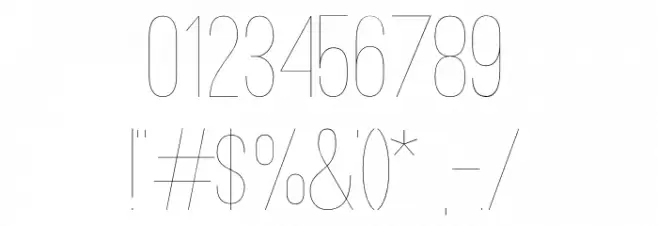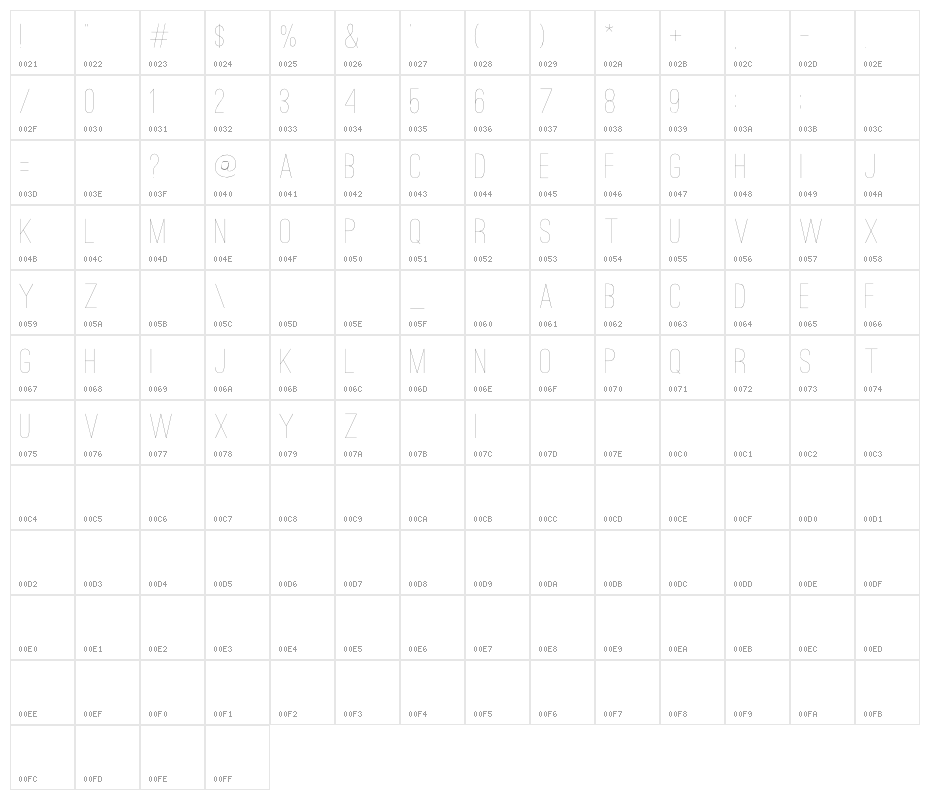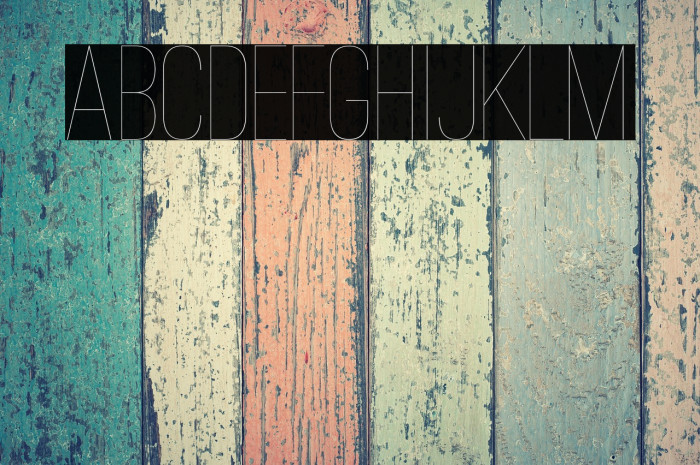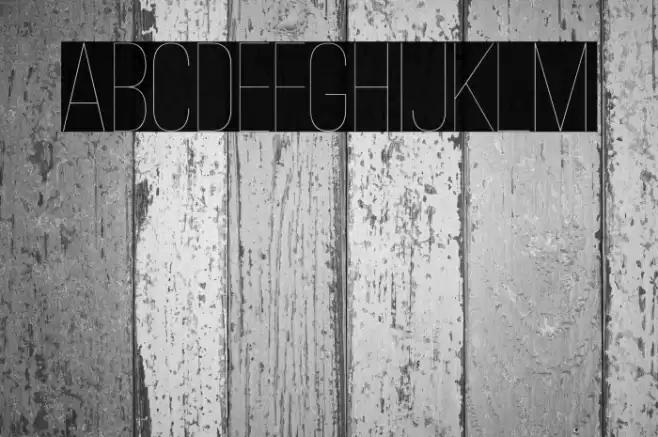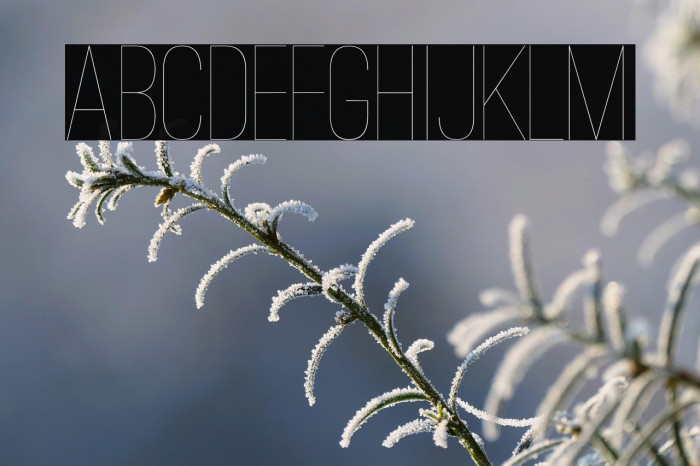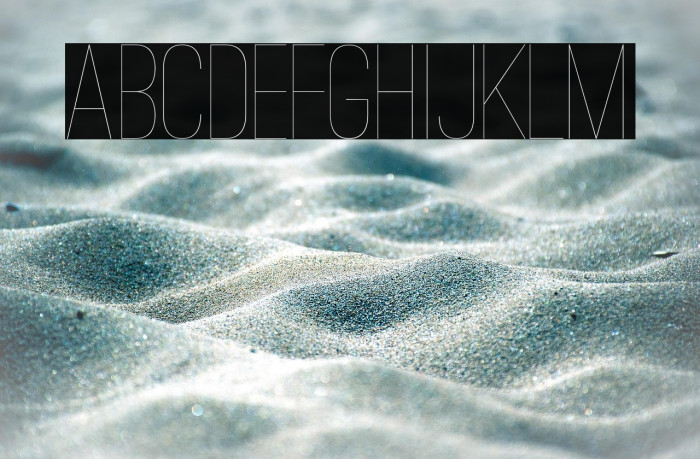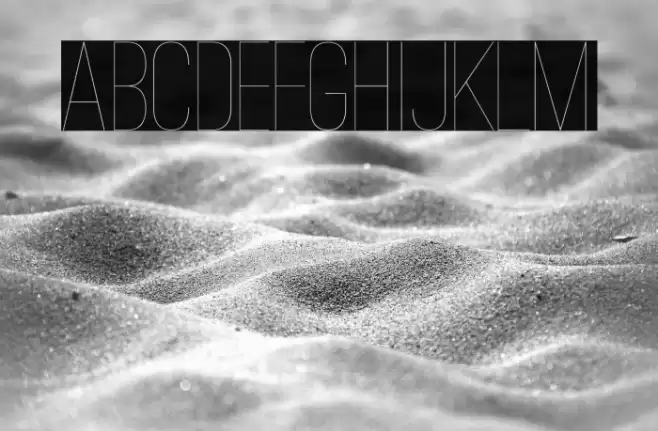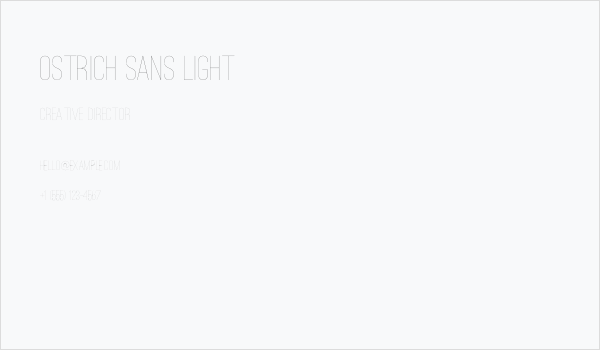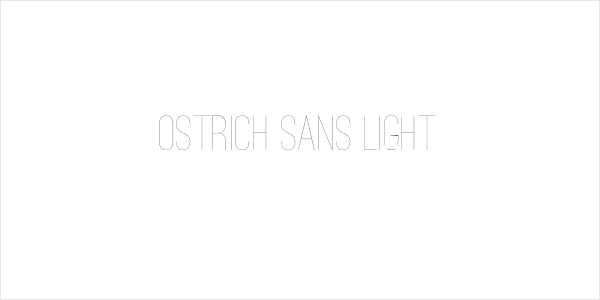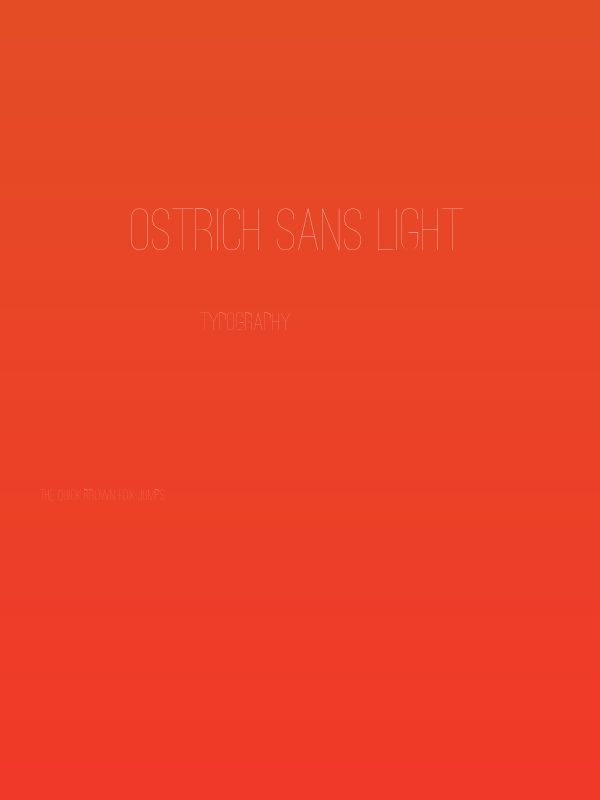
Ostrich Sans Light Font
Ostrich Sans Light Description
This font features a clean and minimalist design with a distinctly modern aesthetic. The characters are tall and slender, with a uniform stroke width that gives it a sleek and sophisticated appearance. The uppercase letters are particularly elongated, creating a sense of elegance and refinement. The numerals and special characters maintain the same thin and airy quality, ensuring consistency across all glyphs. This font's simplicity and clarity make it highly versatile, suitable for a range of design applications where a contemporary and understated look is desired.
Proposed ProjectsIdeal for branding, editorial design, fashion magazines, and minimalist websites.